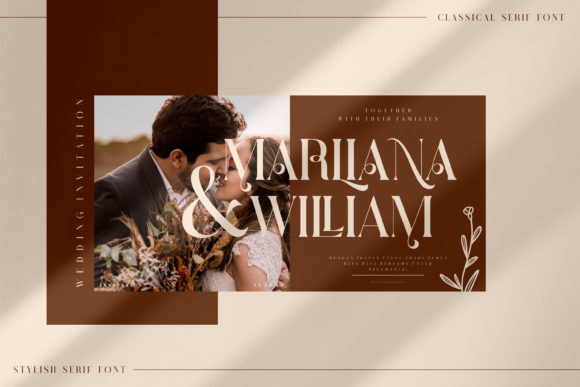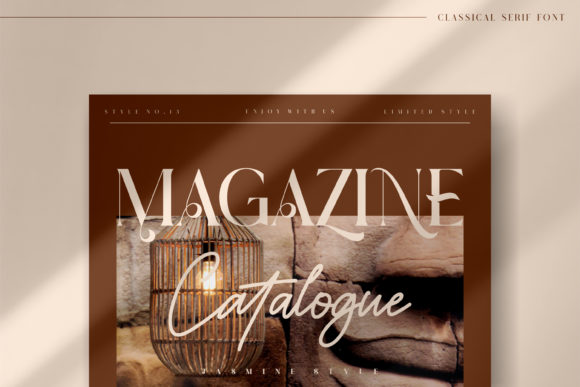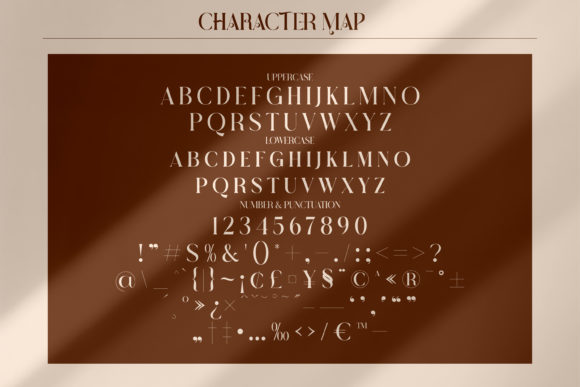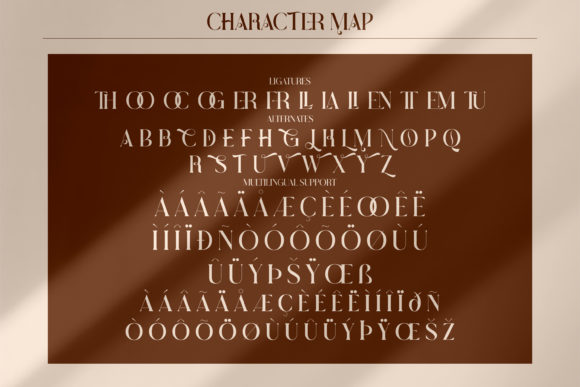
The Historical Marliana Font
The Historical Marliana is a cool, bold and luxurious serif font. This font is PUA encoded which means you can access all of the glyphs and swashes with ease!